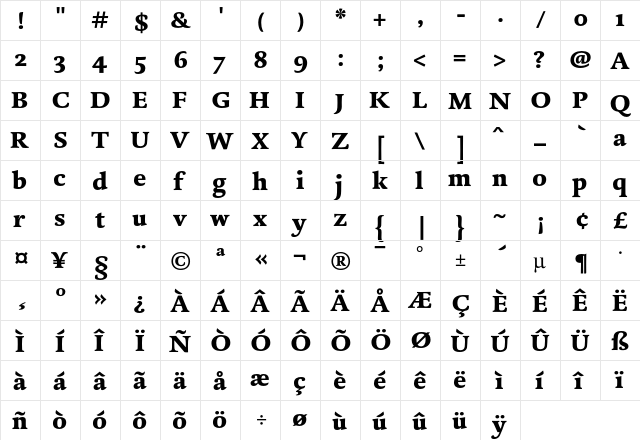
DTL Dorian ST Black
Design Context for DTL Dorian Typeface
DTL Dorian takes a measured approach to typography — its balanced proportions and neutral character make it a reliable workhorse for both digital and print work.